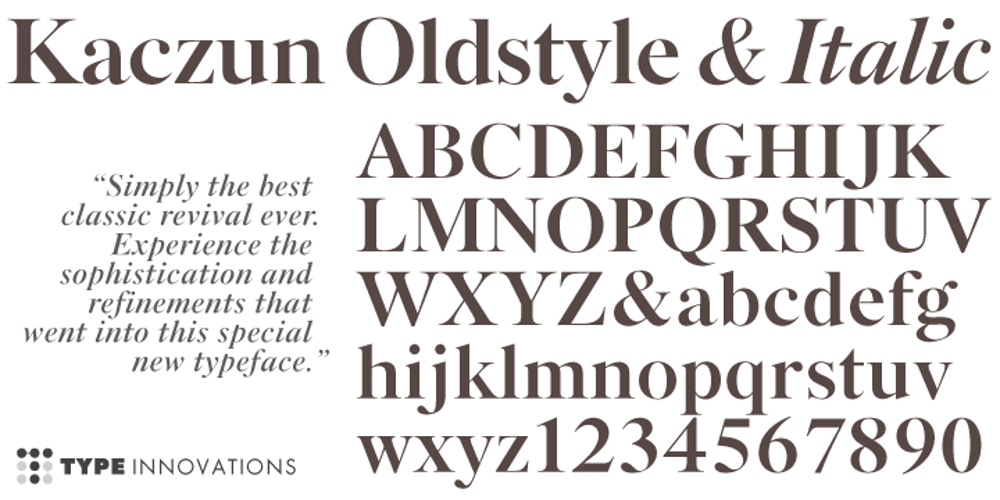
Kaczun Oldstyle Bold Font Family was designed by Alex Kaczun and published by Type Innovations. Kaczun Oldstyle Bold contains 2 styles and family package options. There are many subtle and dramatic differences incorporated into this classic beauty. Many shapes have undergone a bold transformation, while others lines remain faithful to that classic period of time that we all know and love. Kaczun Oldstyle works great in headlines, but it works equally well in text at a wide range of point sizes. Use it instead of the old times because, after all, we live in new times.